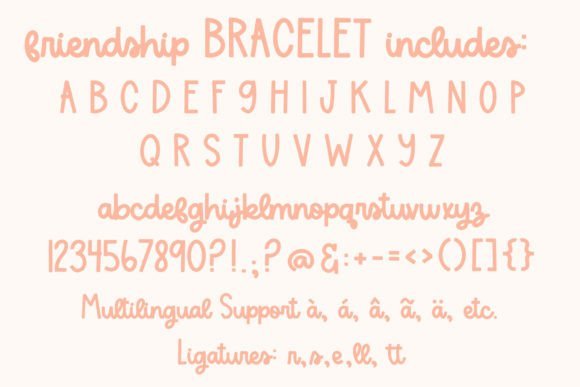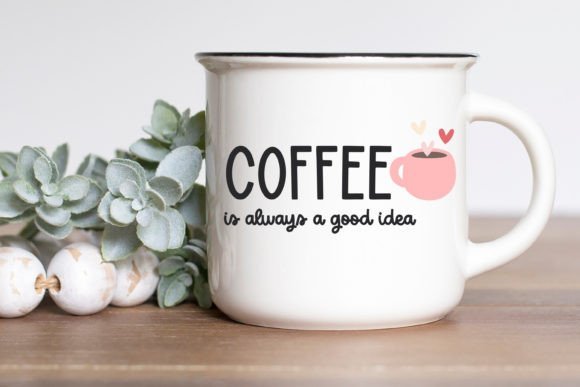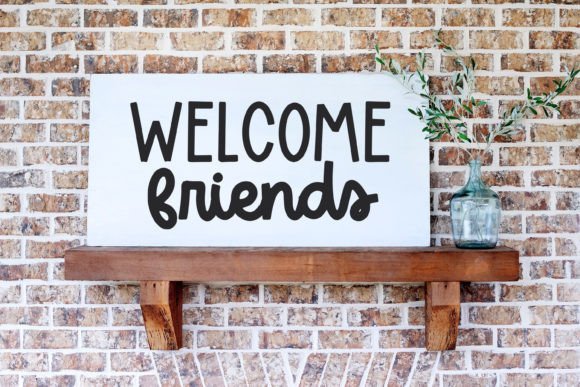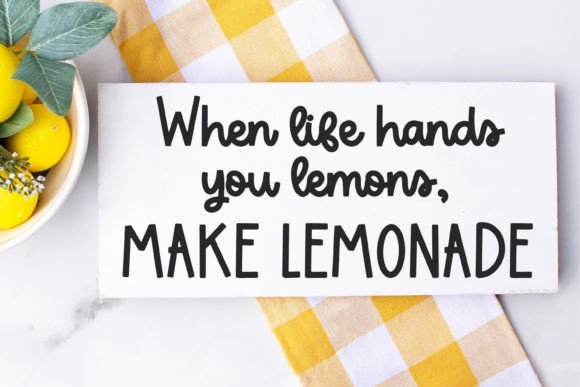
Friendship Bracelet Font
Introducing Friendship Bracelet, an adorable handwritten font, perfect for all your creative projects! Whether you’re a Cricut enthusiast or simply looking for a charming cursive font, this handwritten gem is exactly what you need. With its elegant curves and smooth strokes, this cute cursive font brings a delightful touch to invitations, greeting cards, and personalized crafts. Transform your designs into stunning works of art with this versatile script font, the ultimate choice for anyone seeking a captivating and expressive typeface for their projects.